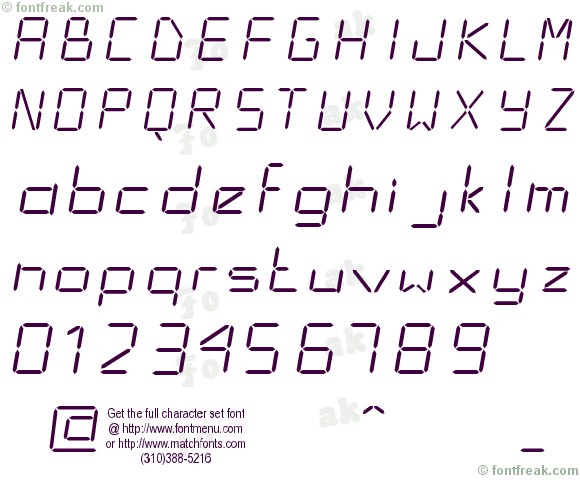
CristoLikid Tryout
About Cristolikid Tryout
Cristolikid Tryout is an engaging display font crafted by Michel Bujardet, designed to capture attention and evoke a sense of creativity. This shareware typeface features a unique blend of playful and sophisticated elements, making it an ideal choice for various design projects. With its bold stroke weight and moderate contrast, the Cristolikid Tryout font offers a captivating visual appeal that stands out in any context. The letterforms are elegantly spaced, ensuring readability while maintaining a distinctive character. The font incorporates subtle decorative elements, adding a layer of charm that enhances its overall design.
This versatile font is particularly suited for use in wedding invitations, where its unique flair can elevate the elegance of the occasion. Additionally, it is an excellent choice for movie posters, as its eye-catching design can help convey a film's genre and mood effectively. Restaurant menus can also benefit from the Cristolikid Tryout font, as it brings a stylish and inviting feel that can enhance the dining experience. Graphic designers and content creators will find this font invaluable for branding projects, logos, and social media graphics, providing a creative edge that resonates with audiences.
The target audience for Cristolikid Tryout includes graphic designers seeking to add a unique touch to their projects, small business owners looking to establish a memorable brand identity, and content creators aiming to captivate their followers with stylish visuals.